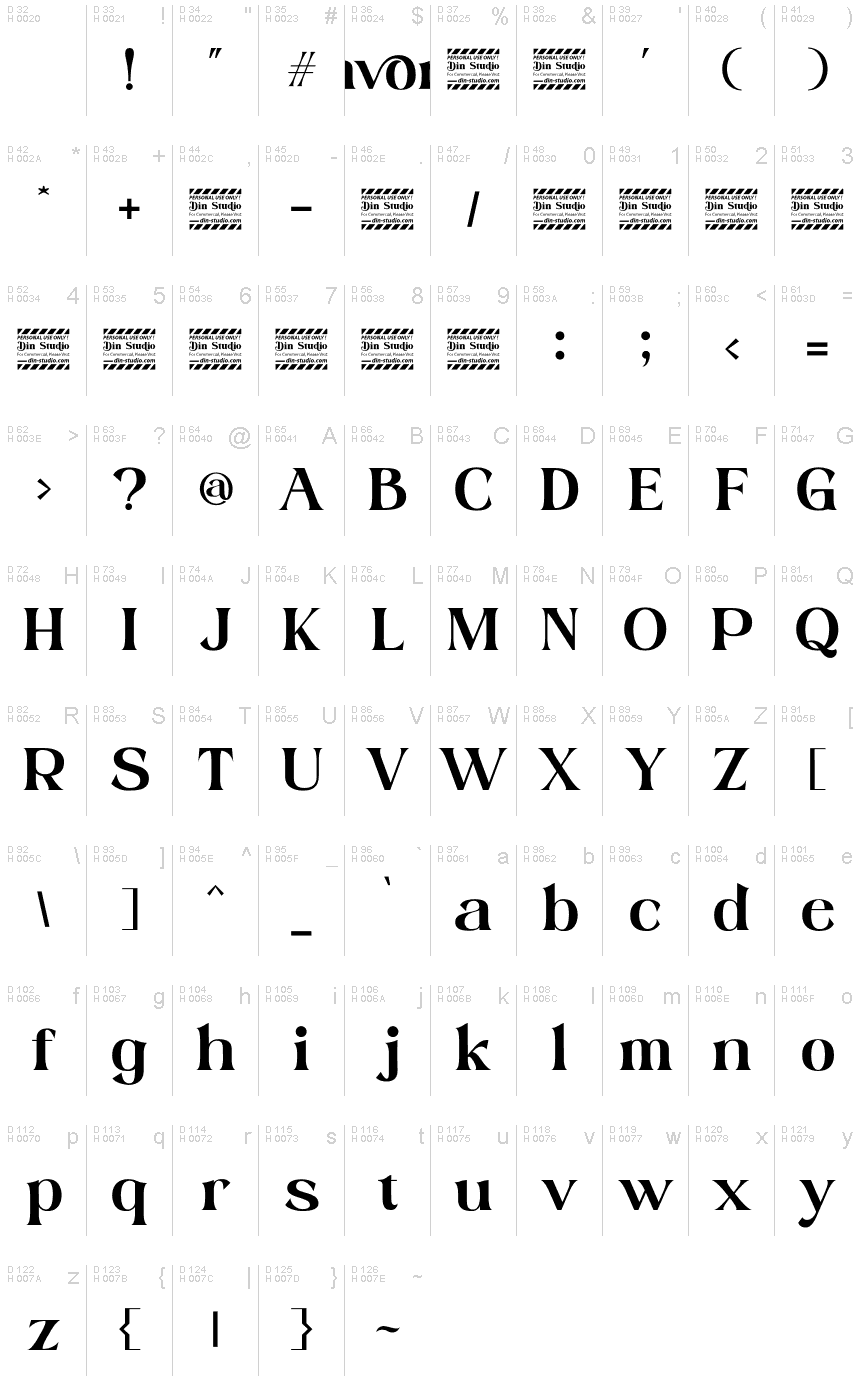
Lavone, the bold and expressive serif font designed by Din Studio, is perfect for creating impactful designs that demand attention. Its semi-expanded width gives it a unique edge, making it a versatile choice for various projects. This powerful font is suitable for designing logos, titles, headlines, and posters that require a bold statement. With its clean lines and elegant curves, Lavone can add sophistication to any project without compromising readability. Whether you're designing for fashion or food industry or creating editorial layouts or book covers, Lavone's boldness will make your designs stand out from the crowd.
Lavone is a elegant serif typeface. Designed primarily as a captivating handcrafted with style. This typeface that is easy on the eyes font that excels at captivating headlines, or large branding text, the font oozes that cute aesthetic that just makes you go aww!